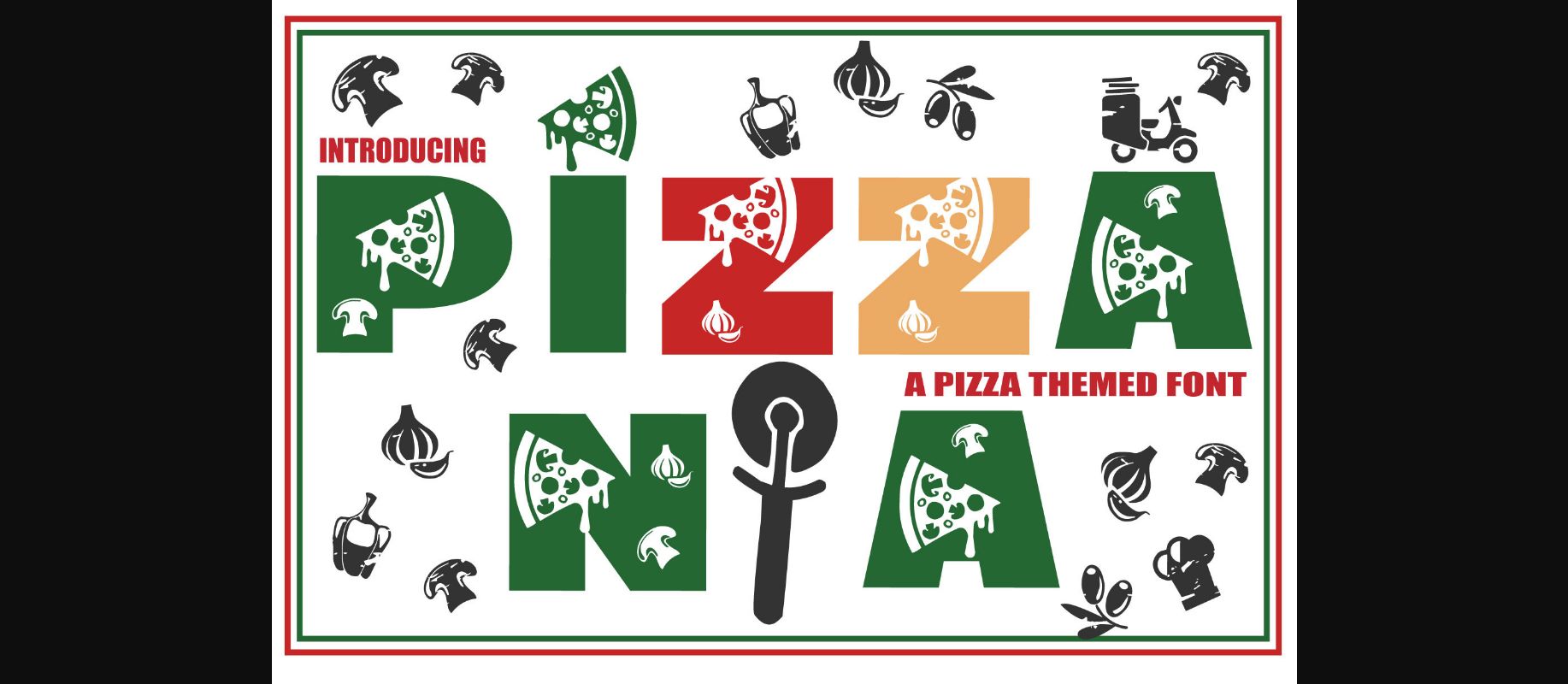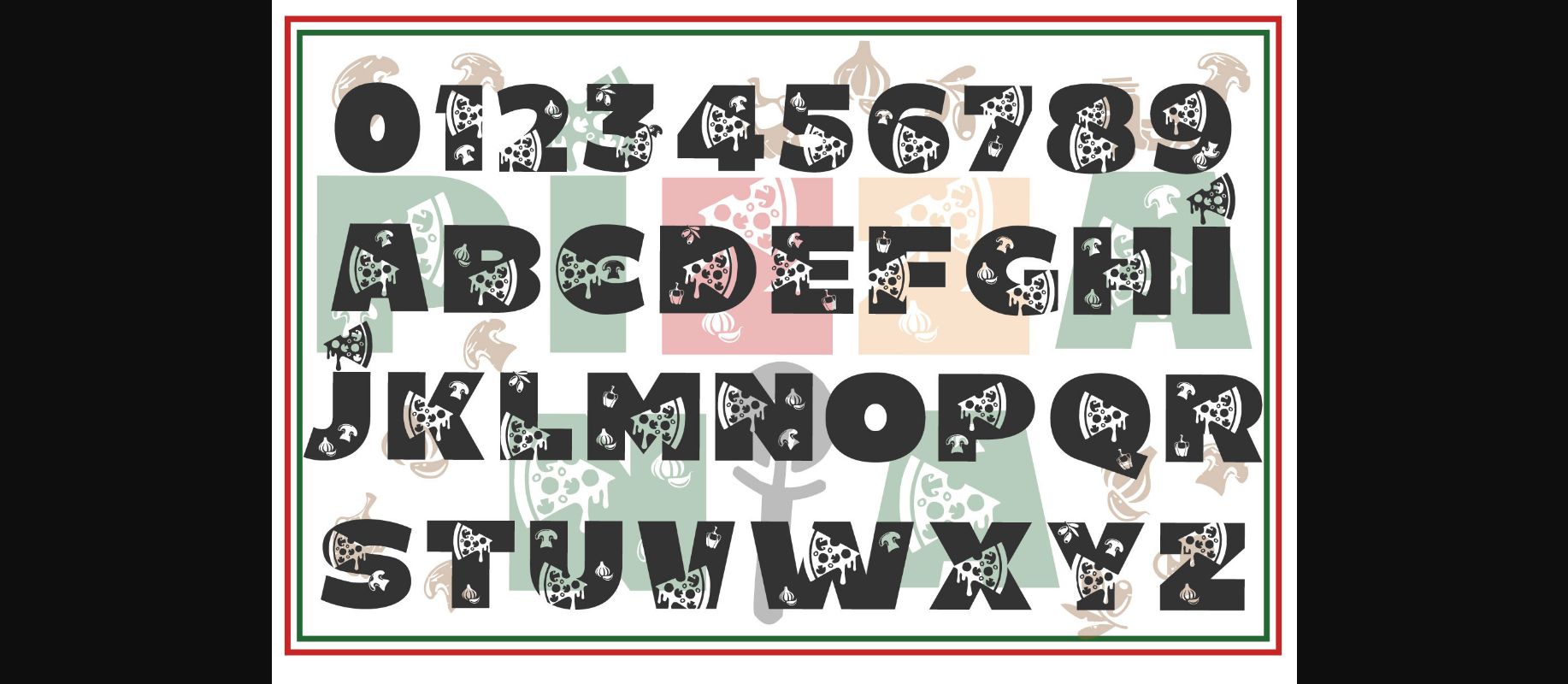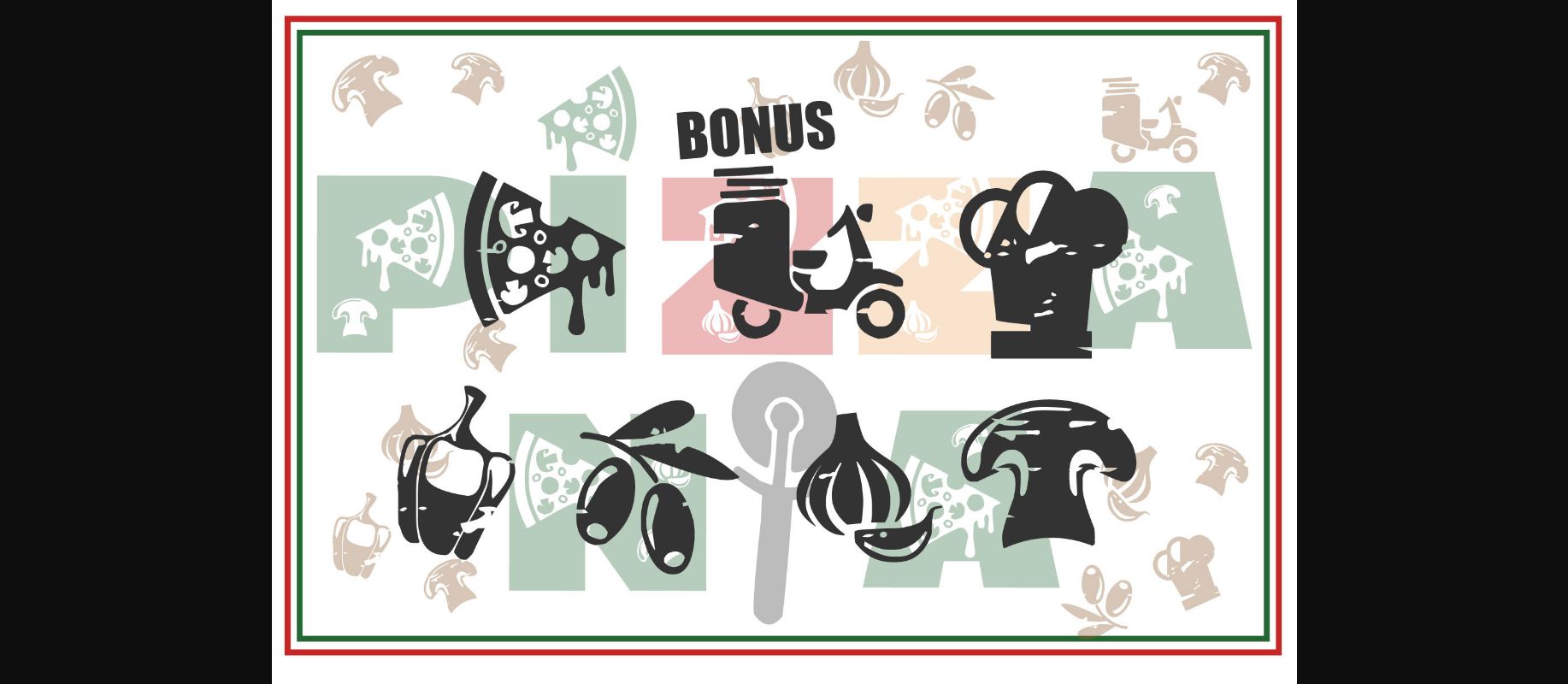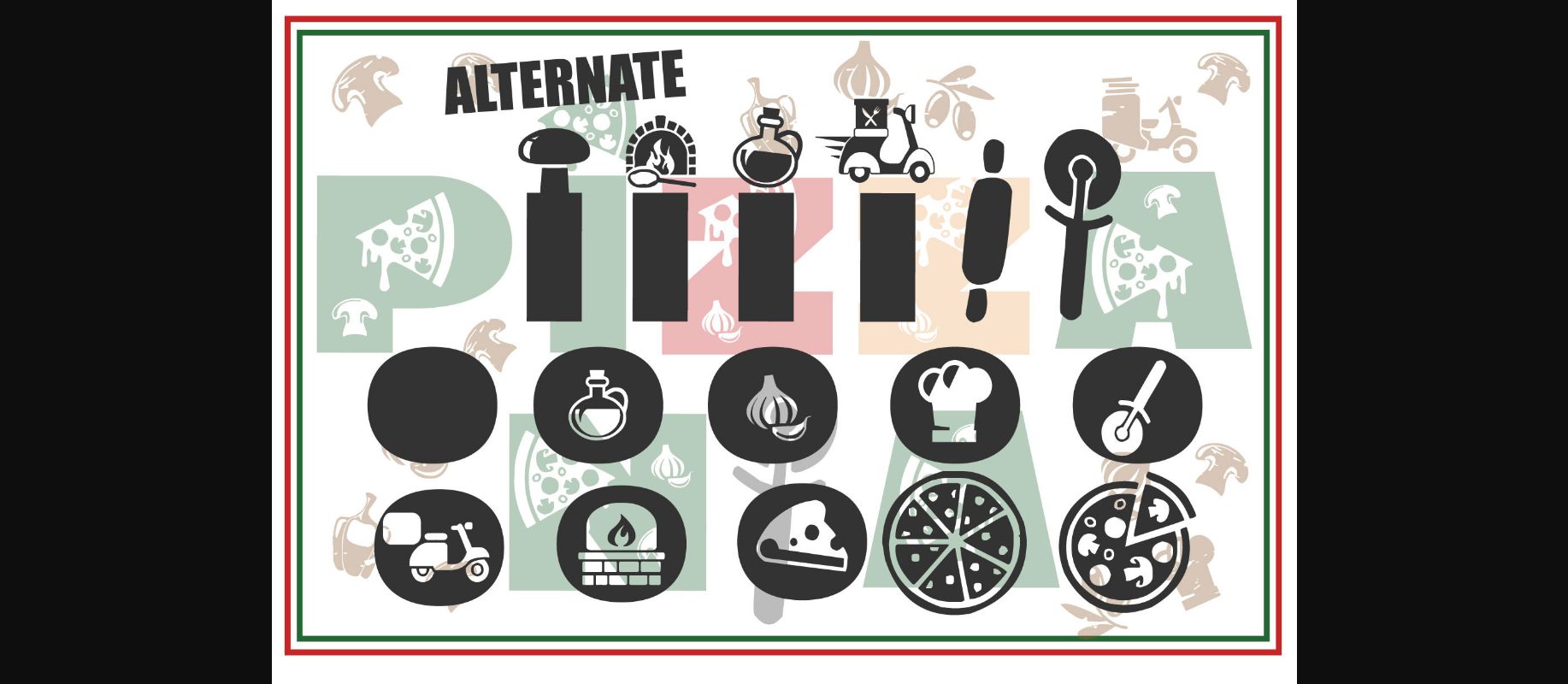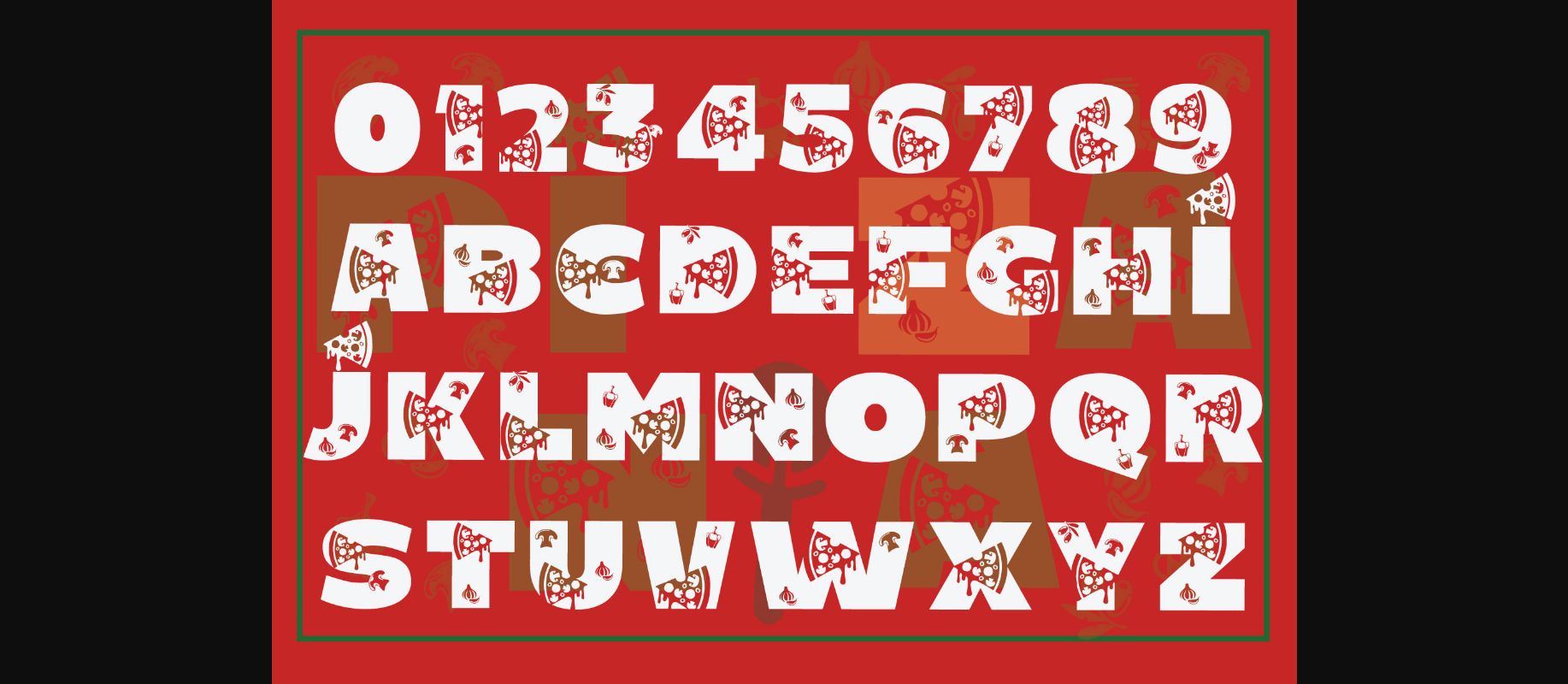
About Pizzania Font
Pizzania is a thick lettered and incredibly unique decorative font. It can be used for various design ideas, particularly those related to menus, cartoons, and games. This font is PUA encoded which means you can access all of the glyphs and swashes with ease!